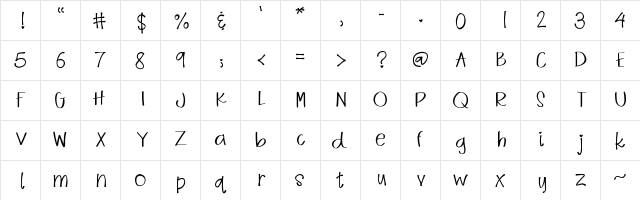
RomancesonSaturdayNight Medium
RomancesonSaturdayNight is a composed and adaptable typeface that performs quietly and consistently across a wide range of design contexts.